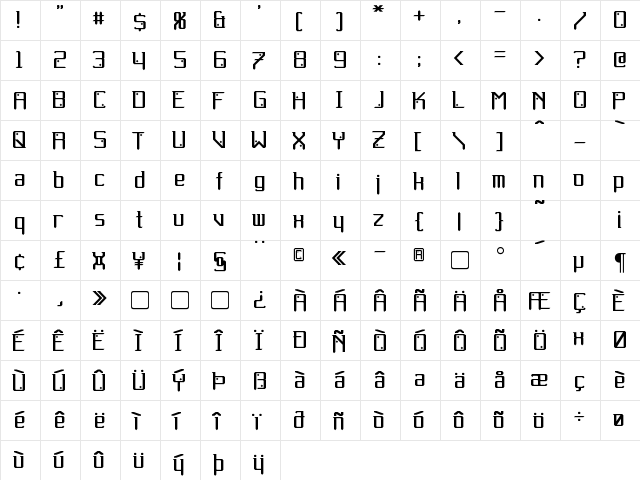
Gemcut Regular
Design Context for Gemcut Typeface
Gemcut is a composed and adaptable typeface that performs quietly and consistently across a wide range of design contexts.